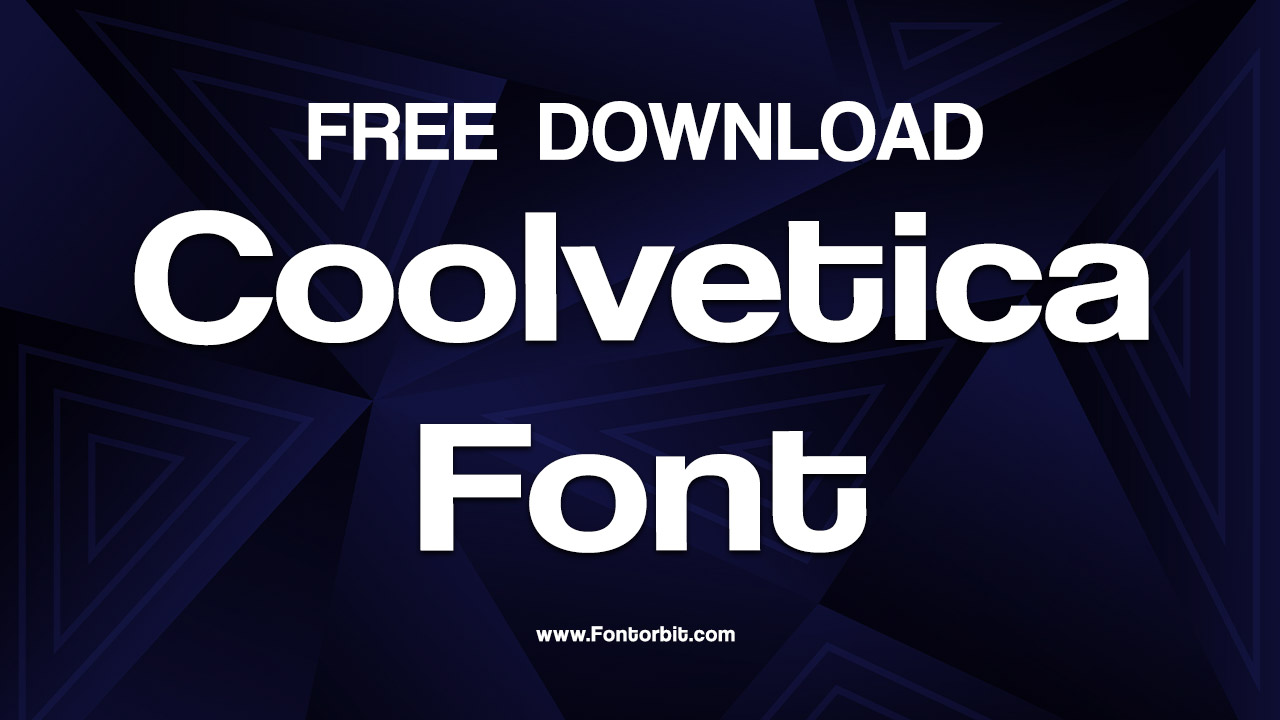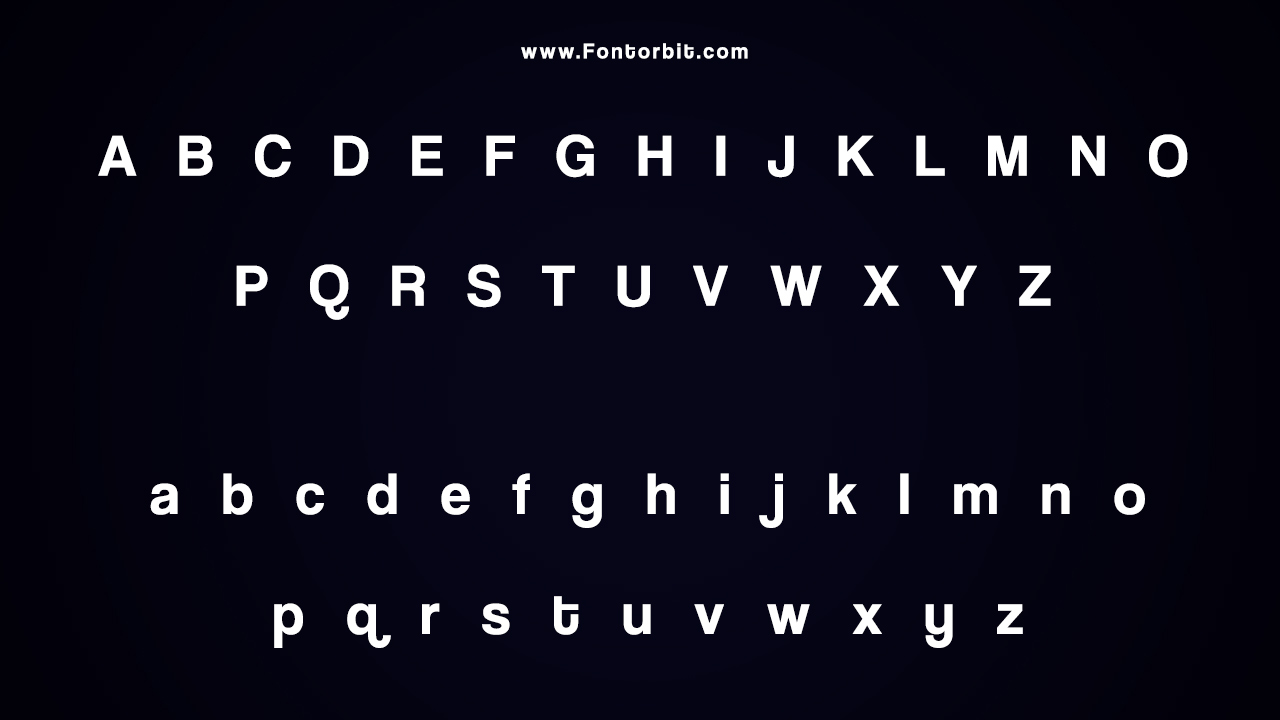
Coolvetica draws inspiration from the typefaces prevalent in the 1970s, offering a playful and retro vibe. Designed by Ray Larabie from Typodermic Fonts, it embodies a sleek and stylish aesthetic.
Coolvetica is widely recognized for its unique lettering and compressed letterforms, offering a modern yet nostalgic look. This font is free for personal use and is perfect for creating bold, eye-catching designs.
The Coolvetica Font Family Includes
Coolvetica features a distinct design that mimics the sans-serif fonts often seen in vintage advertisements and logos. The font family includes various styles that provide flexibility in design projects.
While Coolvetica’s compressed variant is the most popular, the full family offers several weights and widths, allowing for versatile application across different media.
- Coolvetica Compressed Regular
- Coolvetica Condensed Regular
- Coolvetica Crammed Regular
- Coolvetica Regular
- Coolvetica Regular Italic
Coolvetica is ideal for use in creative designs that need a touch of retro flair. The font’s bold and compact nature makes it suitable for headings, logos, posters, and advertising materials. Its clean lines and smooth curves make it a go-to choice for those looking to inject a sense of nostalgia while maintaining a modern aesthetic. Some popular uses include:
- Advertising
- Merchandise
You’ll often spot Coolvetica in designs that aim for a vintage or retro look. It’s commonly used in advertising, merchandise branding, and media that want to evoke the 1970s style. Whether in fashion, print media, or digital content, Coolvetica’s iconic appearance makes it a favorite for brands and designers looking to create memorable, eye-catching visuals.
Coolvetica Font captures the essence of 1970s design with its smooth, clean lines and bold structure. It remains a popular choice for creating logos, posters, and other materials where a modern-retro aesthetic is desired.
While Coolvetica is distinctive, similar fonts like Helvetica Neue, Bebas Neue, and Arial Rounded can also be used to achieve a comparable style. Pairing Coolvetica with minimalistic sans-serifs or geometric fonts can further enhance your design’s visual impact.
1.What Is The History Of The Coolvetica Font?
Ray Larabie designed Coolvetica as a tribute to the popular sans-serif fonts of the 1970s. Its retro yet modern feel has made it a favorite in contemporary design circles.
3.What Are The Design Principles Behind The Coolvetica Font?
Coolvetica’s design focuses on bold, smooth letterforms that embody the casual yet stylish aesthetic of vintage advertisements. Its clean, rounded edges and compact proportions make it stand out in both digital and print media.
4.What Is The Color Palette Used In The Coolvetica Font?
While Coolvetica itself is color-agnostic and can adapt to any palette, it pairs well with vibrant colors that emphasize its retro style. It particularly shines when used with high-contrast colors, such as black, white, neon hues, and pastel shades.